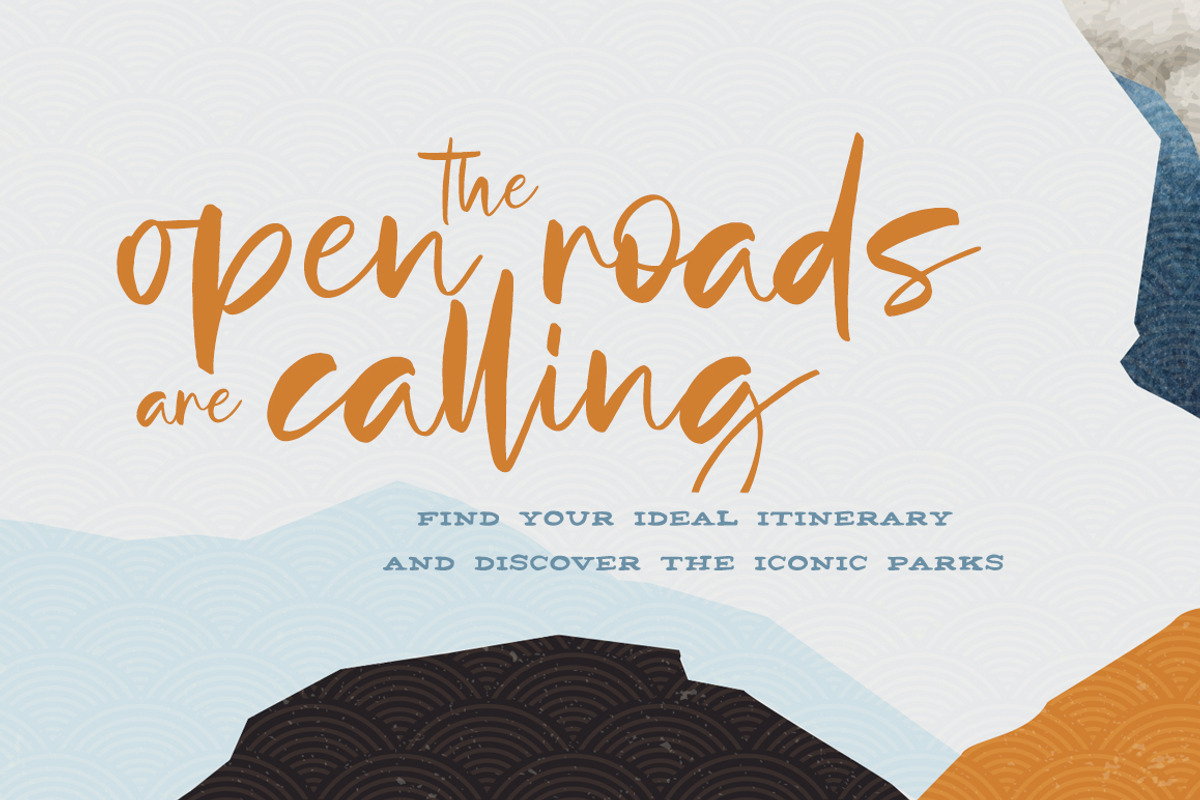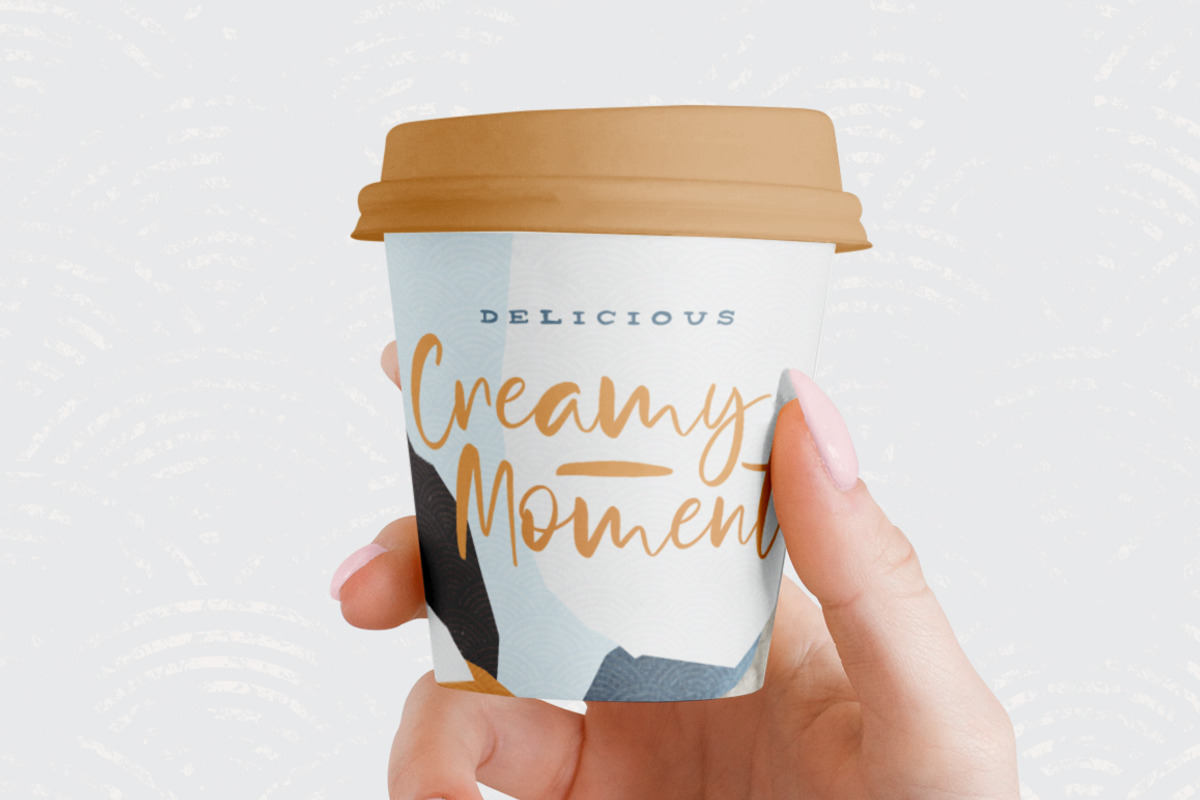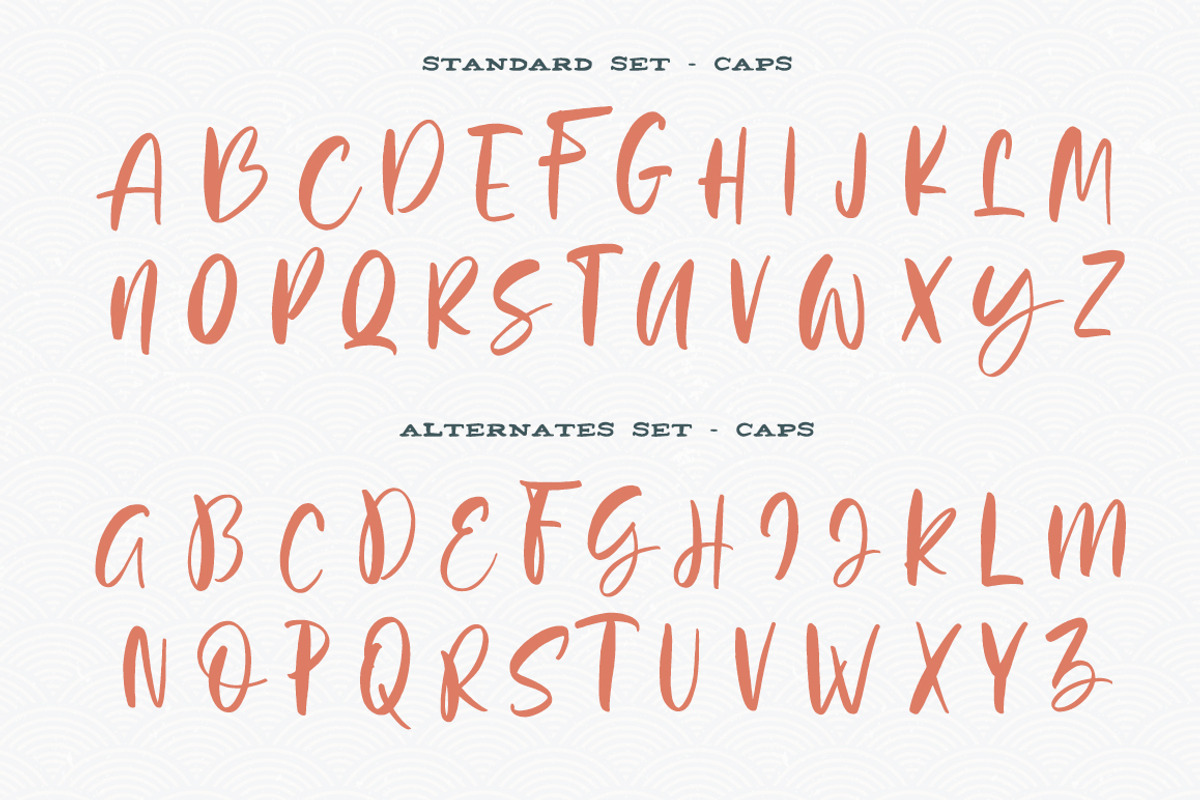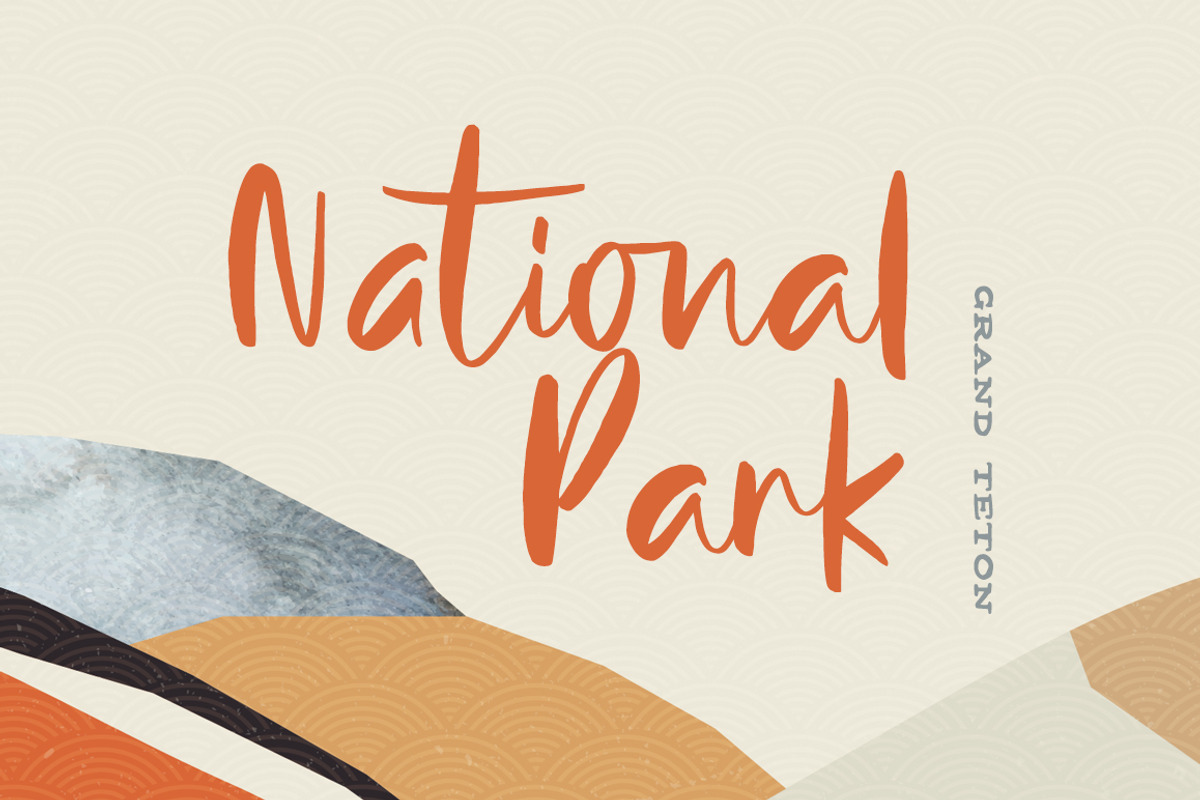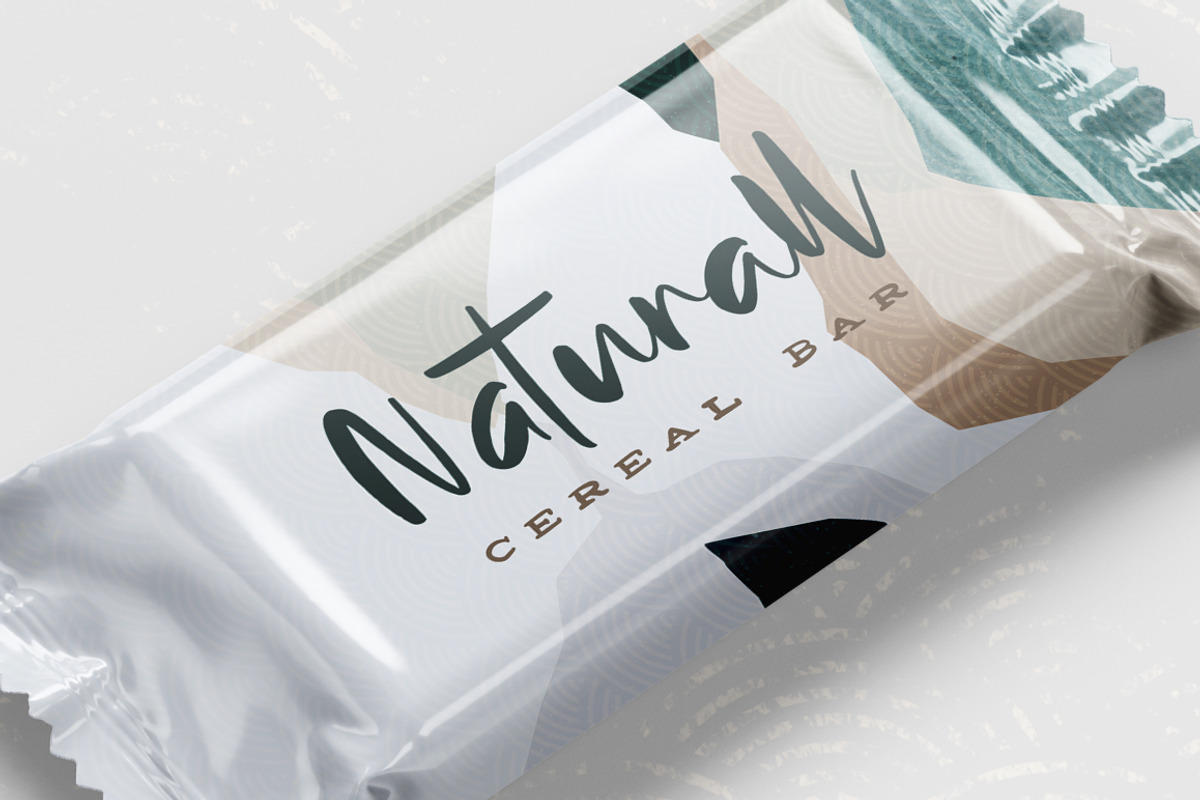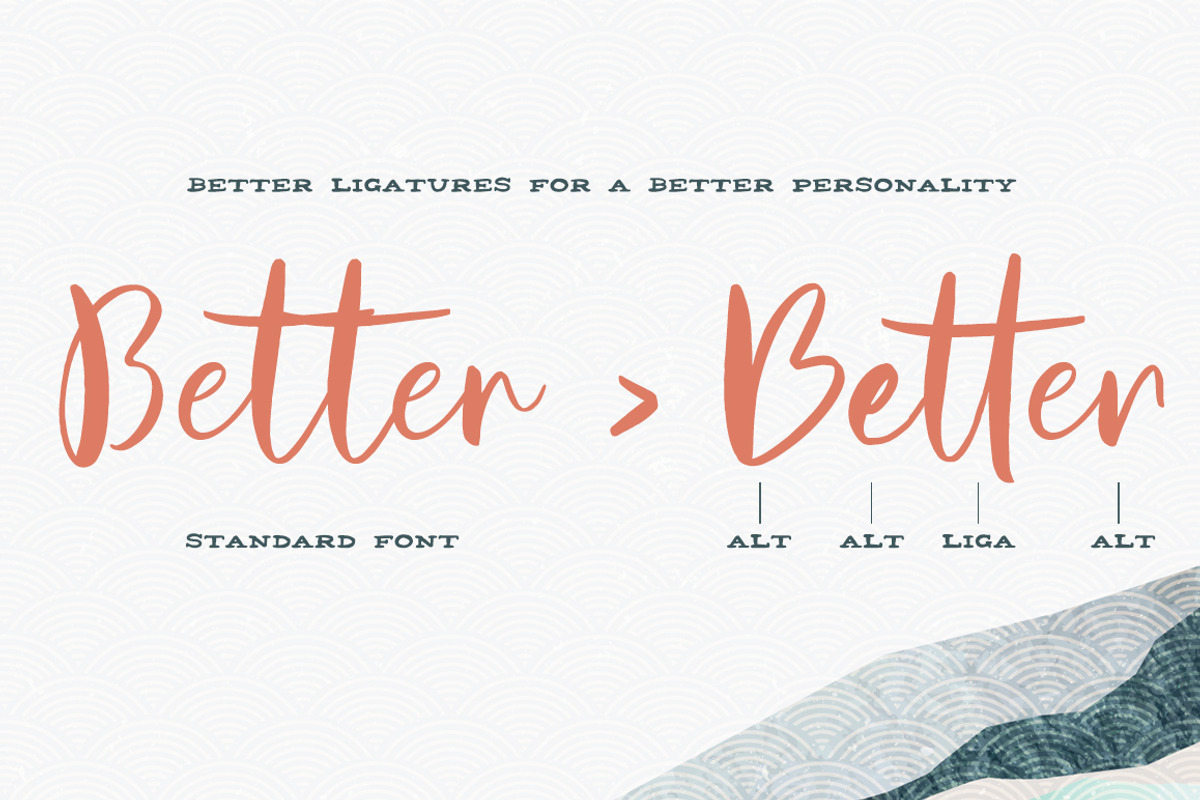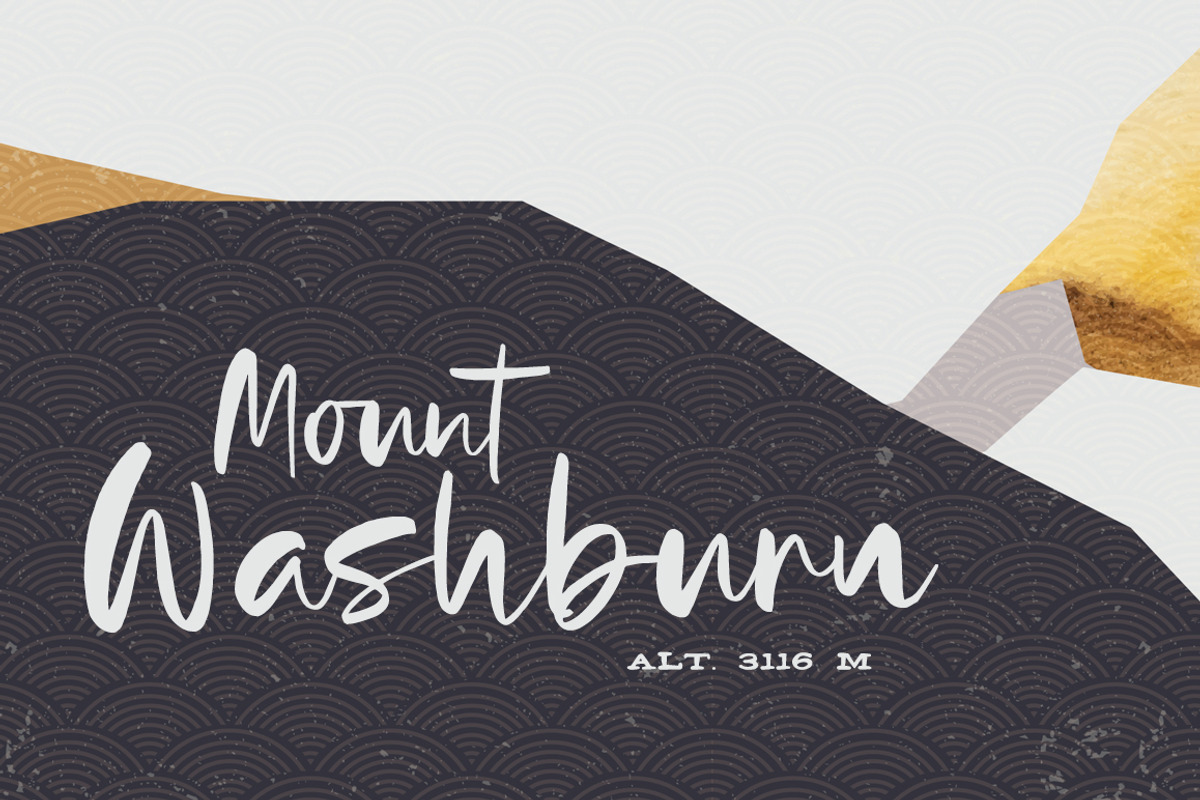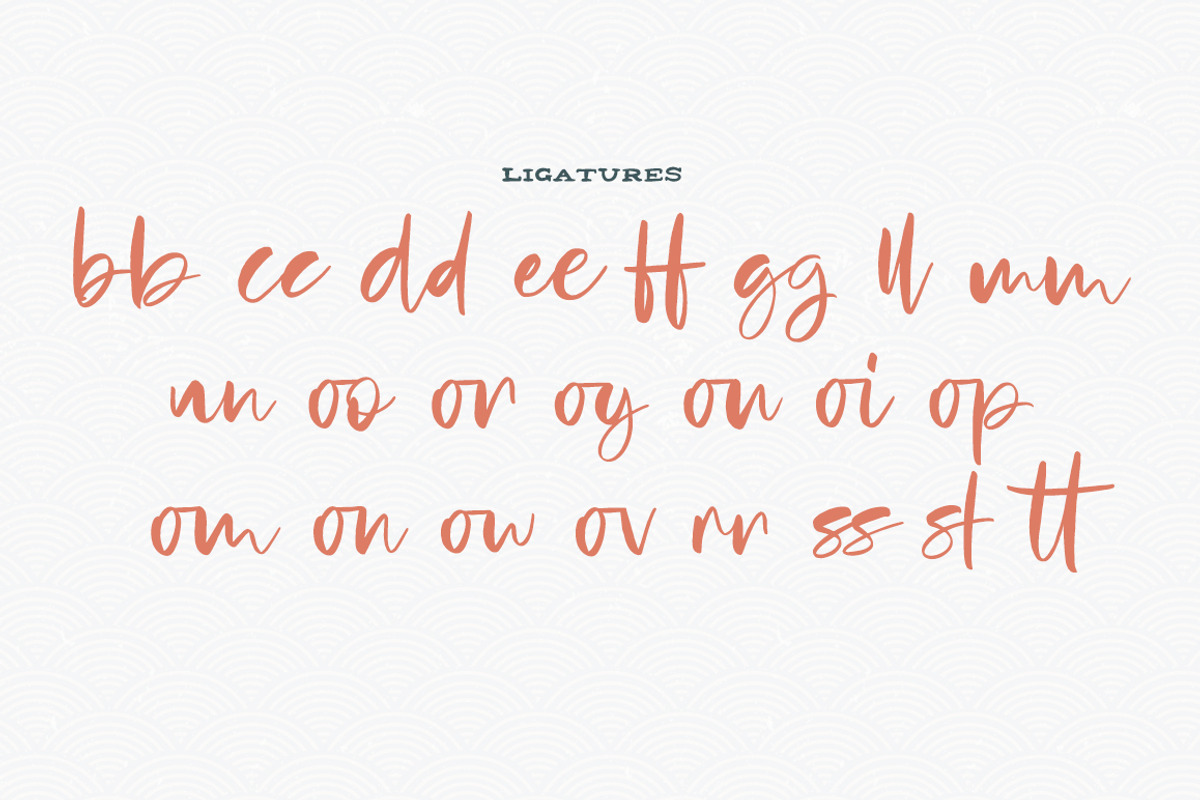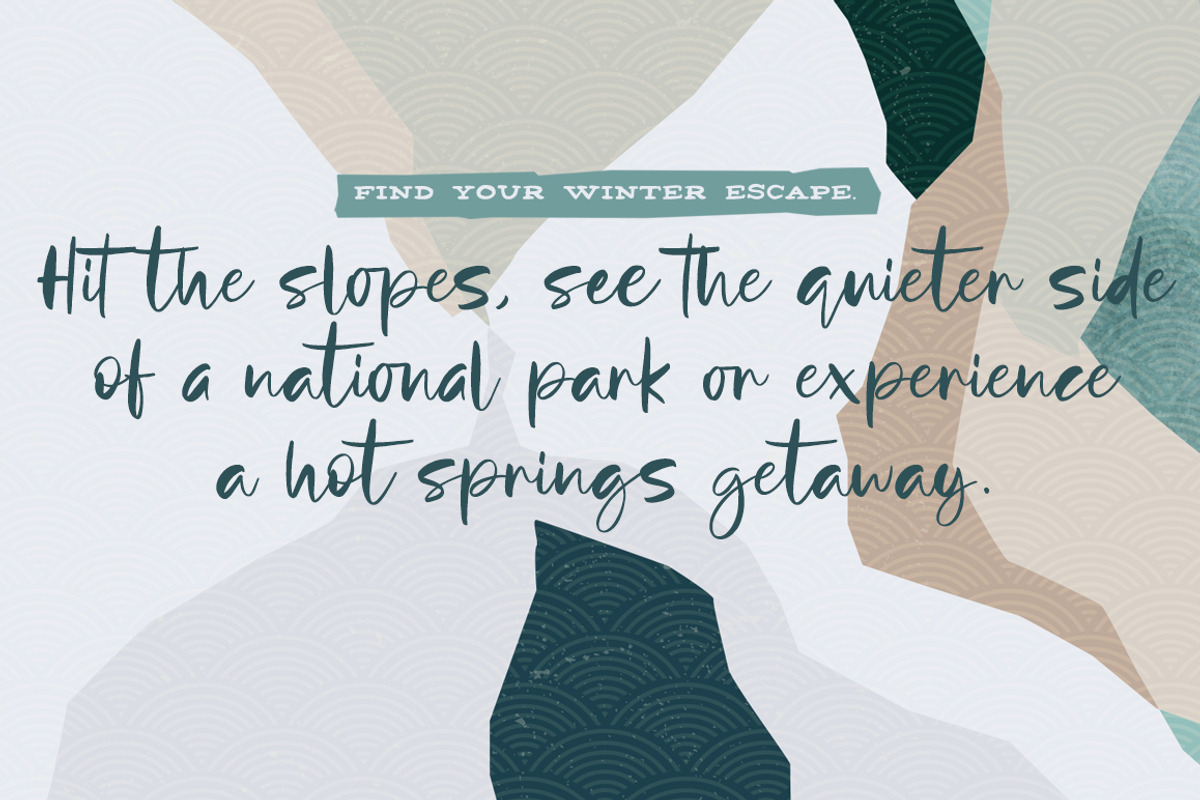
Yellowstone
Yellowstone is a cool brush font with a soft and boucy style. It wil be your best font choice for branding, wedding invites, cards, or for modern packaging.
Yellowstone includes a wide set of gorgeous uppercase and lowercase letters, numerals, a large range of punctuation and a ton of ligatures.
You will also get the Yellowstone Duo font. It's a sweet serif font that is a great complementary typeface for the Yellowstone font.